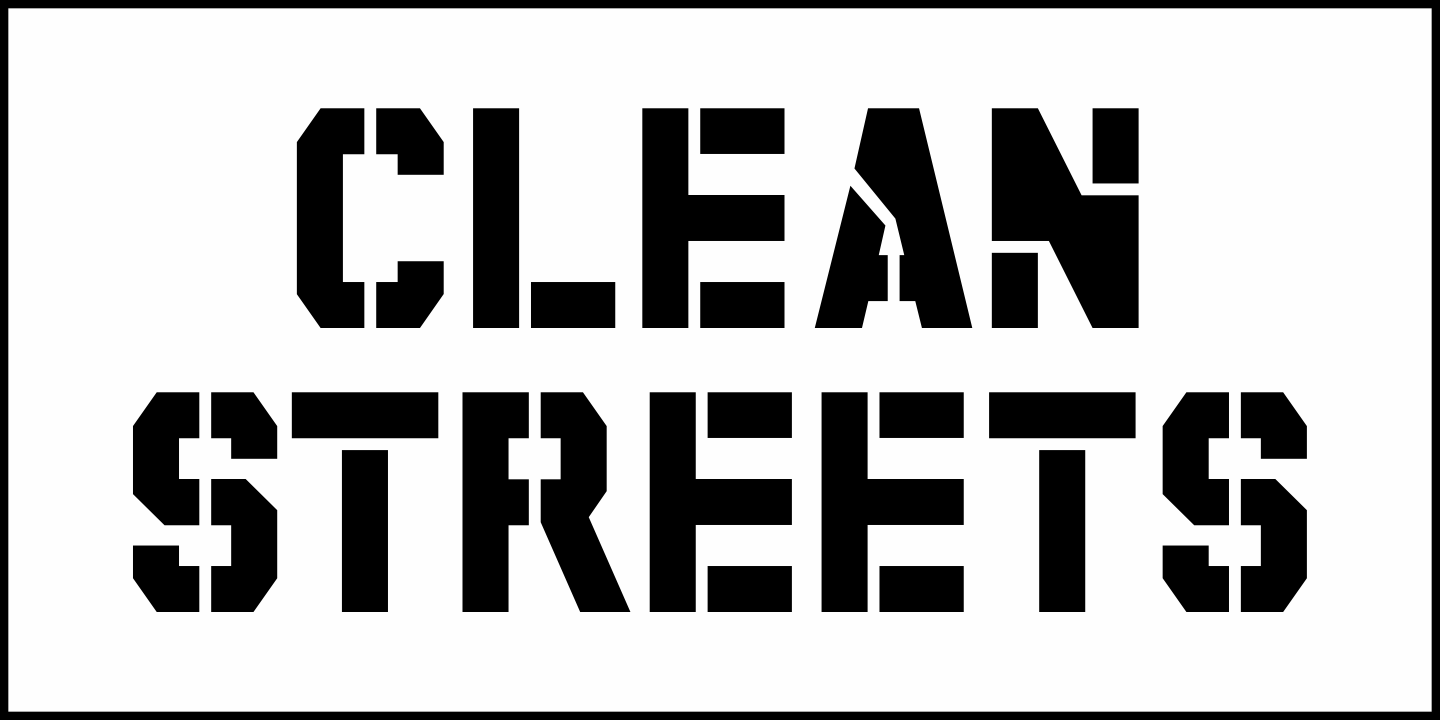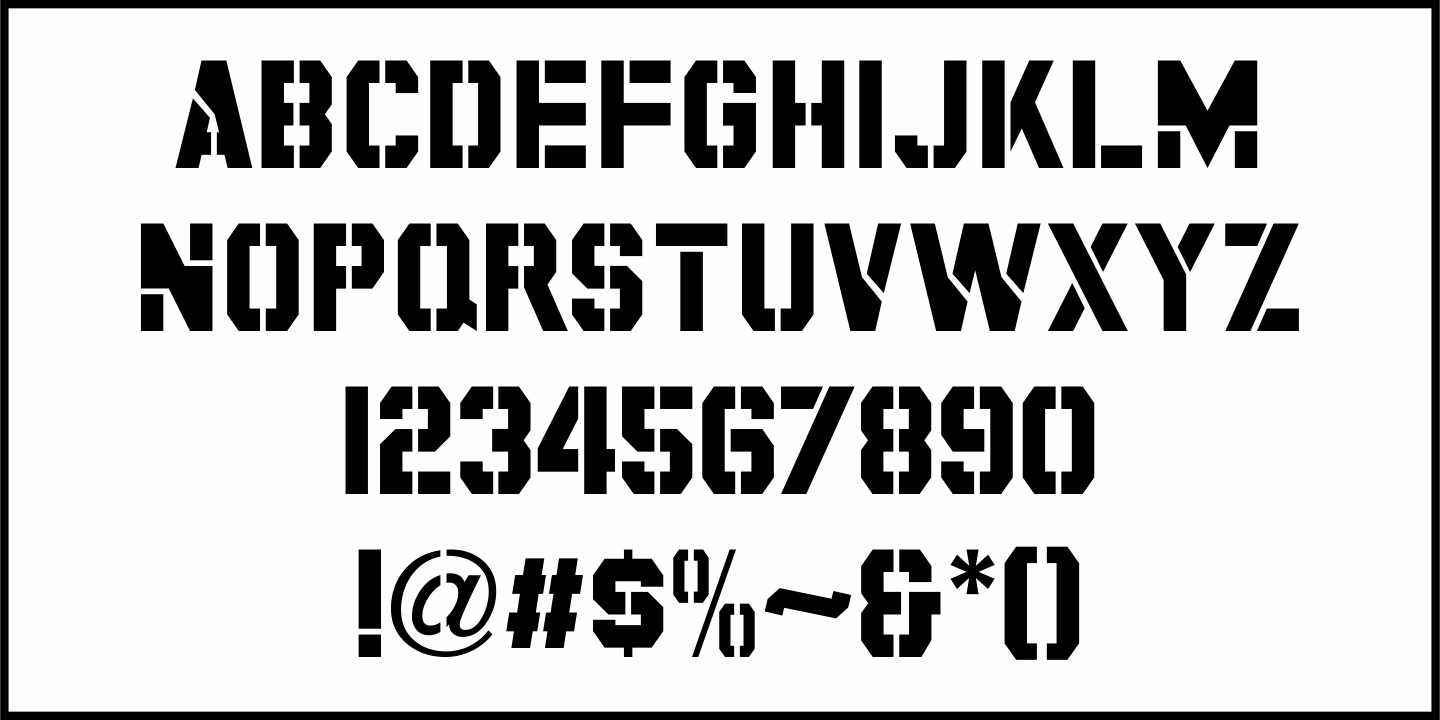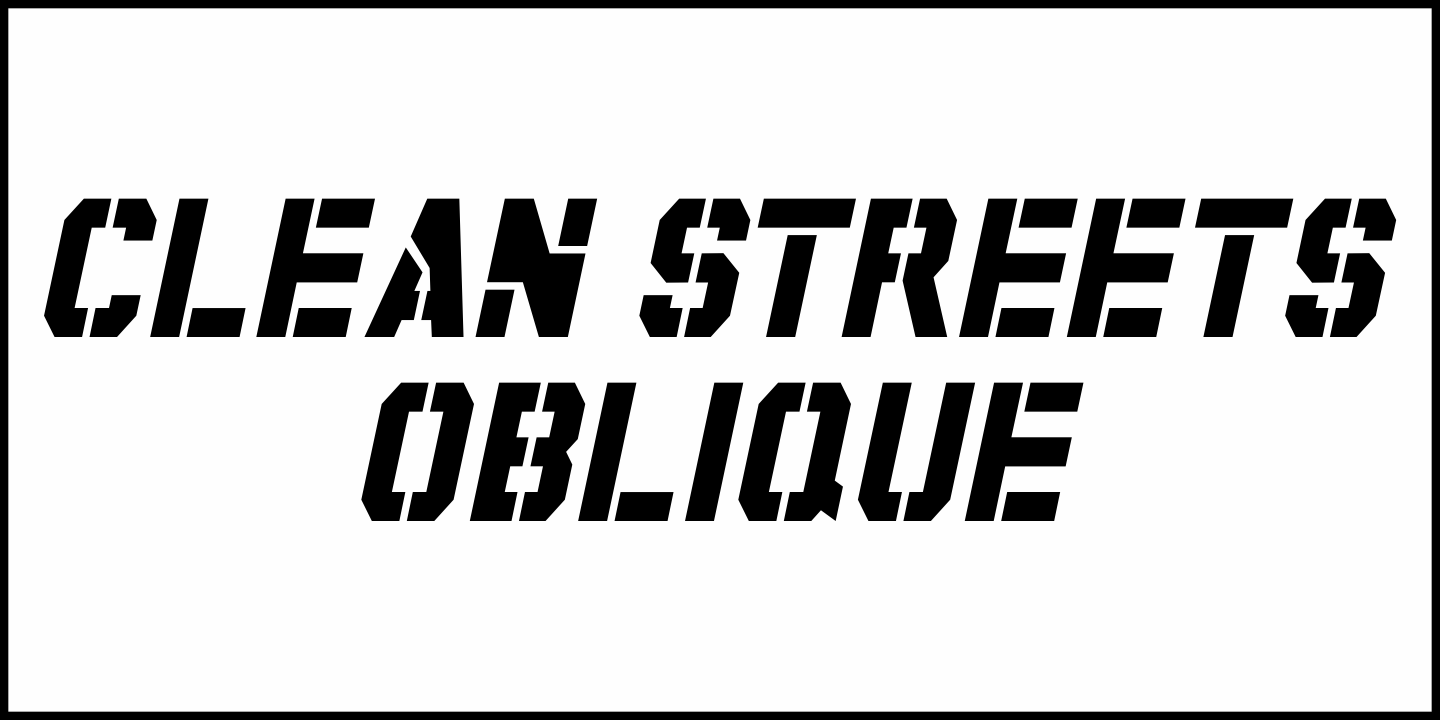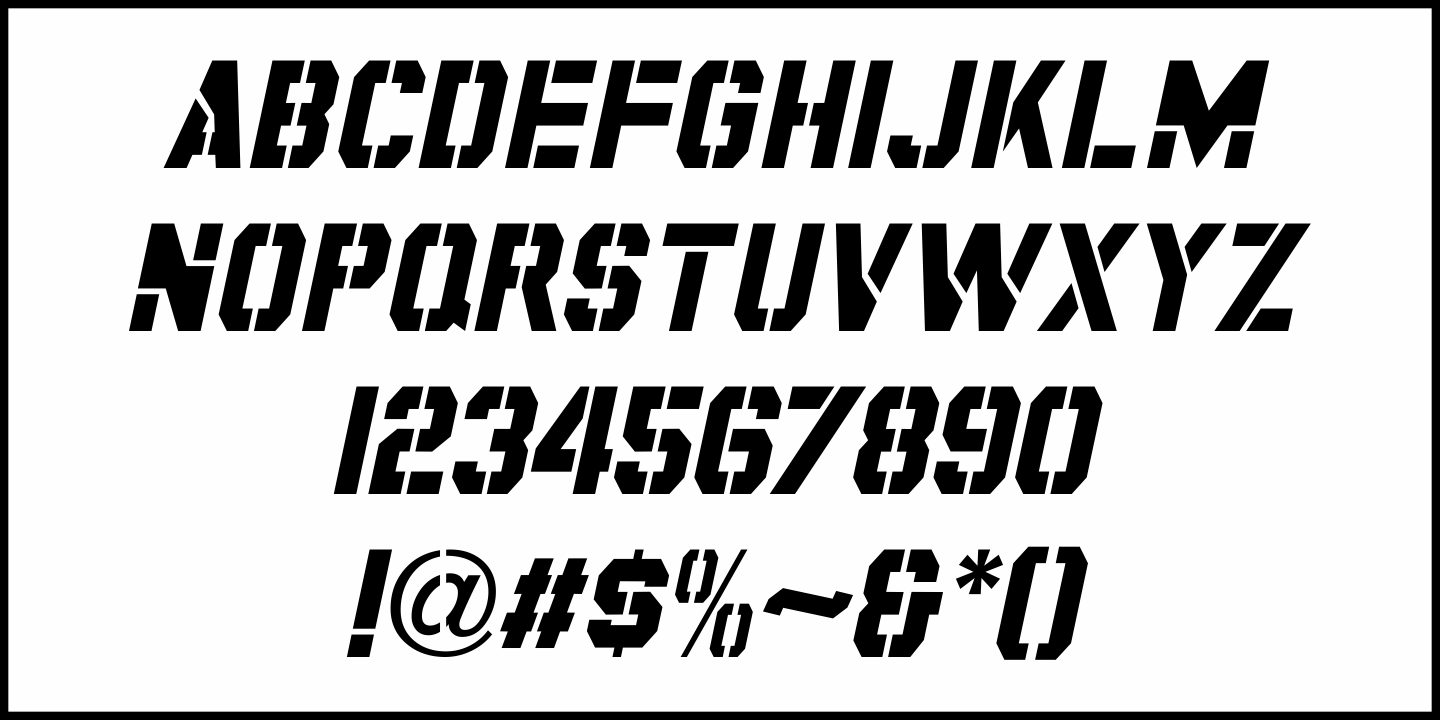
Clean Streets JNL
In the Alfred Hitchcock Presents episode "The Right Kind of Medicine" [from, 1961] starring Robert Redford, during the opening scene the camera pans by a public trash can with the stenciled phrase "Help Keep Our City Clean" painted on it.
The message was done in a bold sans serif type design with chamfered corners. This inspired Clean Streets JNL, which is available in both regular and oblique versions.